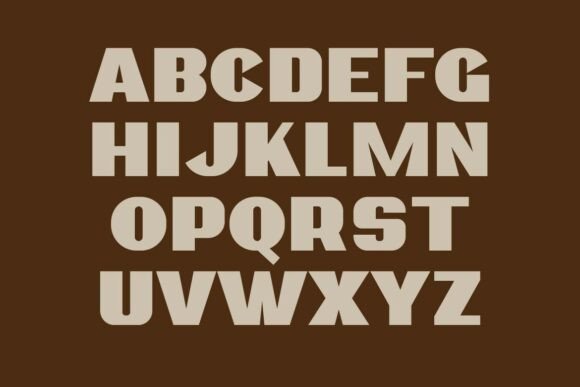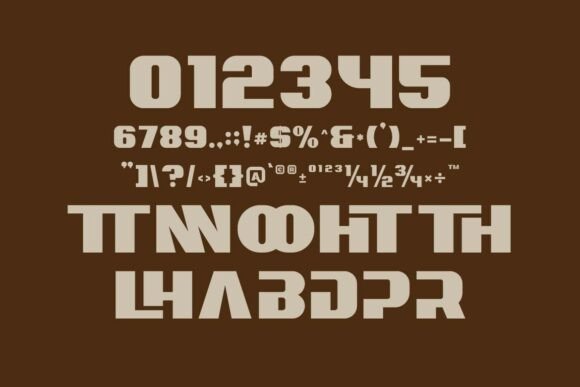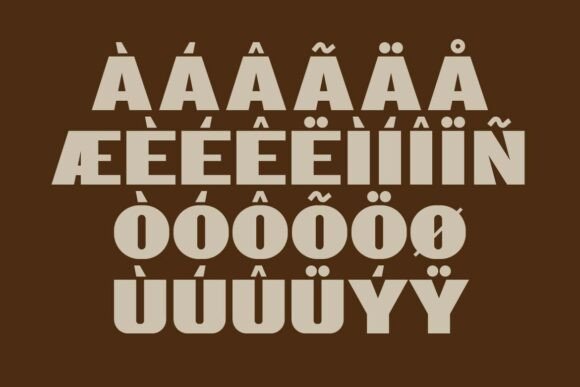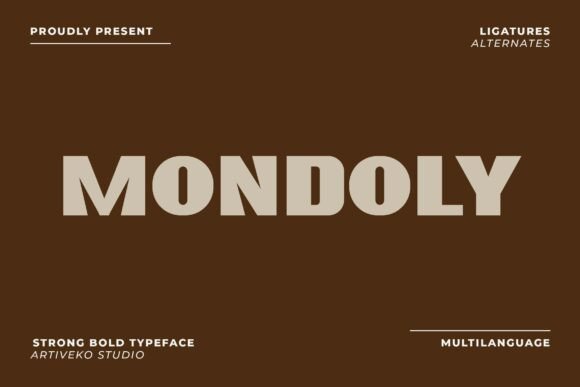
Introduction to Mondoly Font
Mondoly is a striking sans serif font designed to deliver power, clarity, and contemporary style.
With its thick strokes, clean geometry, and strong letterforms, Mondoly is ideal for impactful headlines, branding, posters, packaging, sports graphics, and advertising campaigns that demand attention .
Key Features of Mondoly Font
Why Choose Mondoly Font?